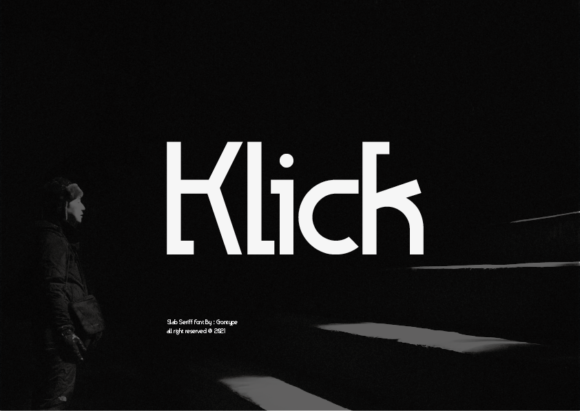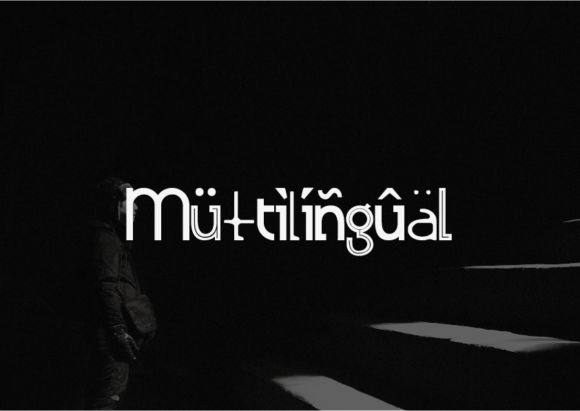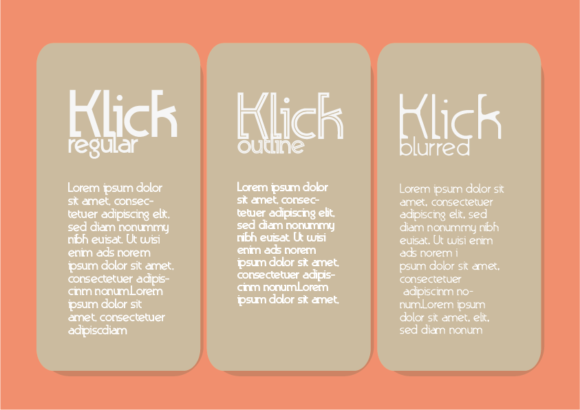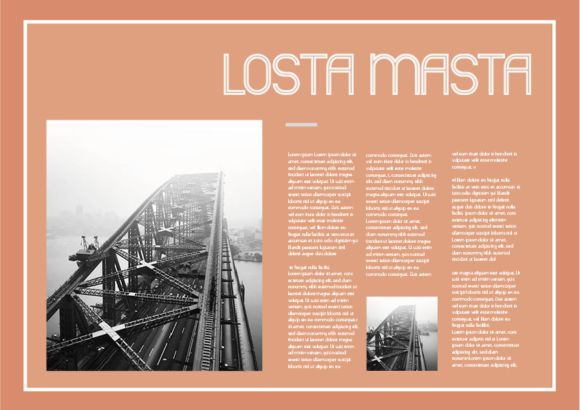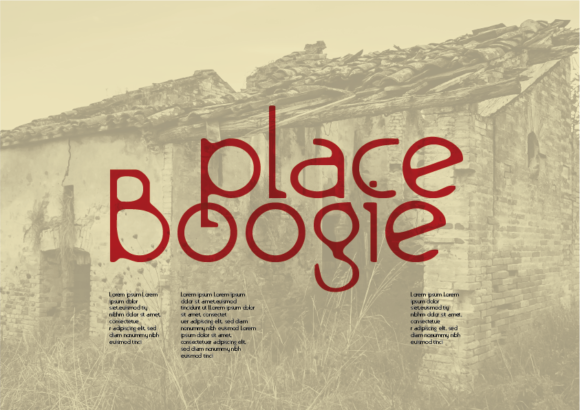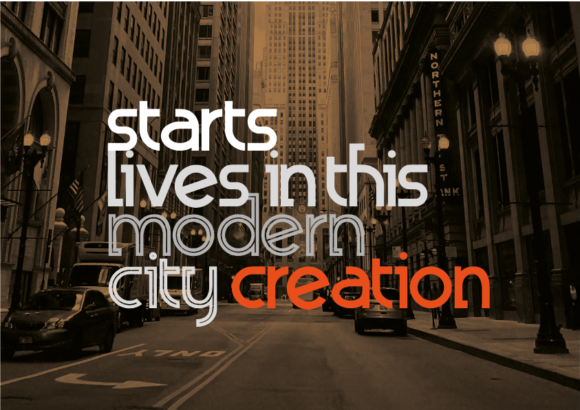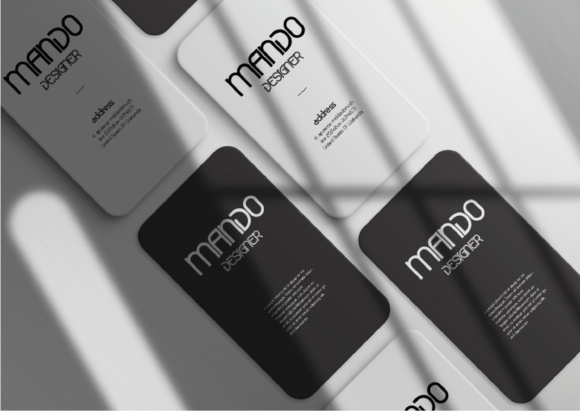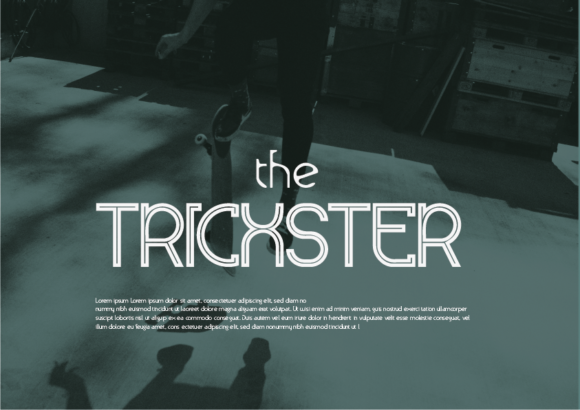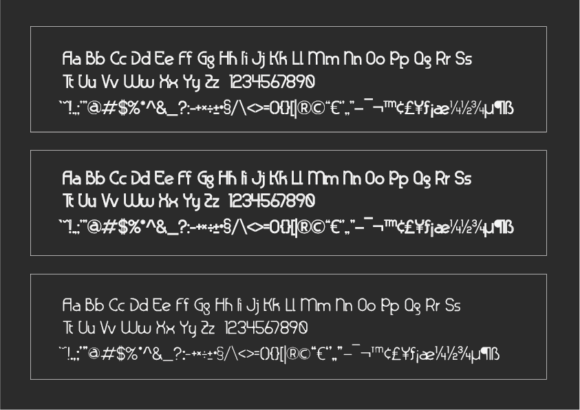
Klick Font
Klick is a cool and interesting slab serif font. Simple but with a strong visual effect, this font will instantly make your creation more appealing than any others.